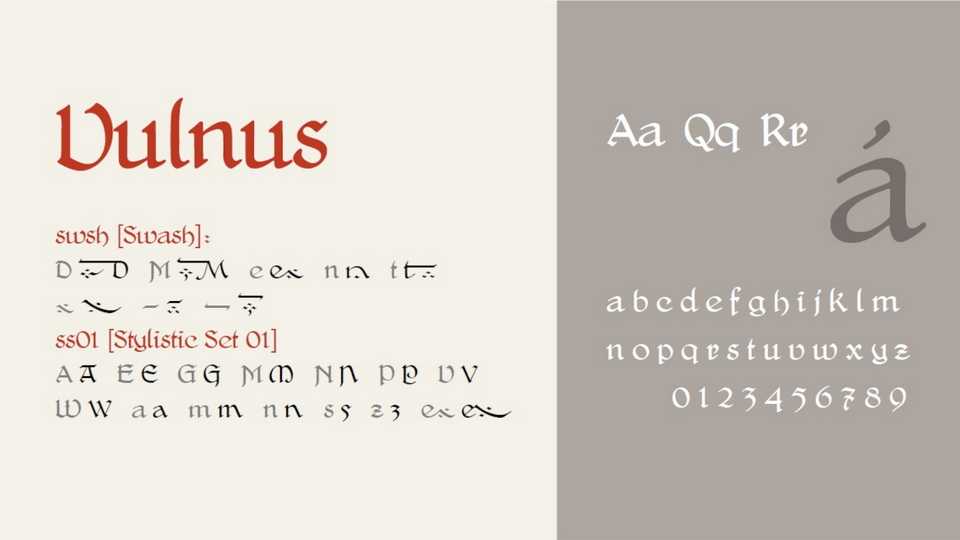
Download Vulnus font, a typeface based on scans of Delitsch-Antiqua published in 1911. Vulnus font fully embodies the character of the broad-cut broad nib.
Designer: Michele Casanova